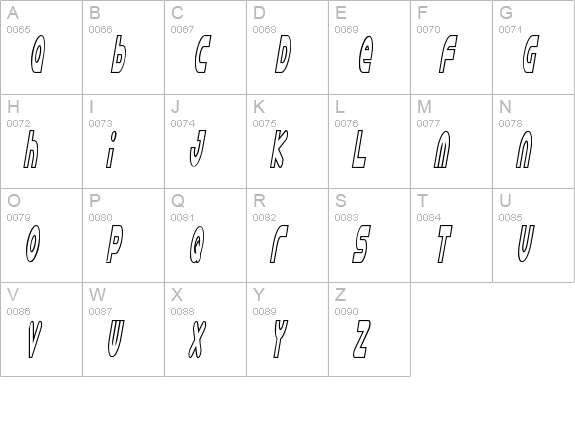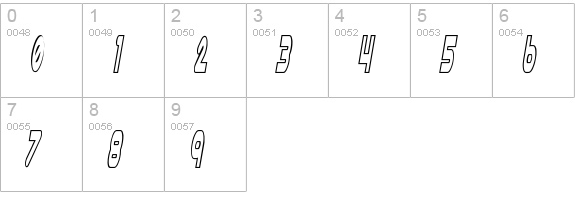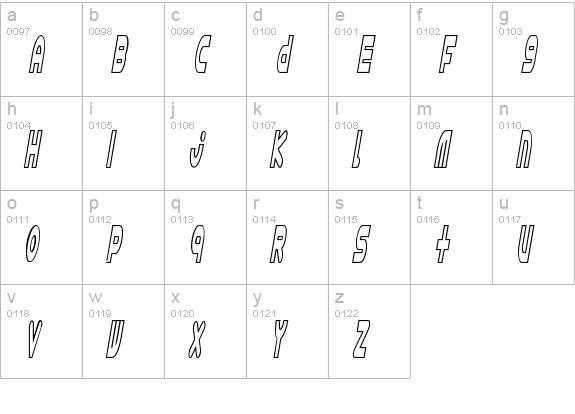
Astro 869 font is a modern and sleek typeface that exudes elegance and sophistication. With its clean lines and contemporary design, this font is perfect for a wide range of design projects, from branding to advertising to web design. One of the best things about Astro 869 font is that it is completely free to download. You can get your hands on this stylish typeface at FontsMarket.com without having to spend a dime. Whether you're a professional designer looking for a new font to add to your collection or a hobbyist in need of a fresh look for your personal projects, Astro 869 font is the perfect choice. Download it today and elevate your designs with this versatile and eye-catching typeface.